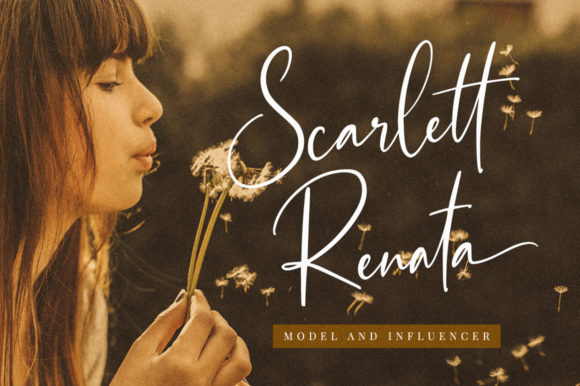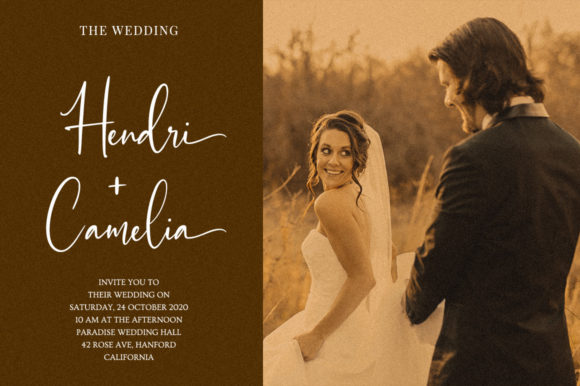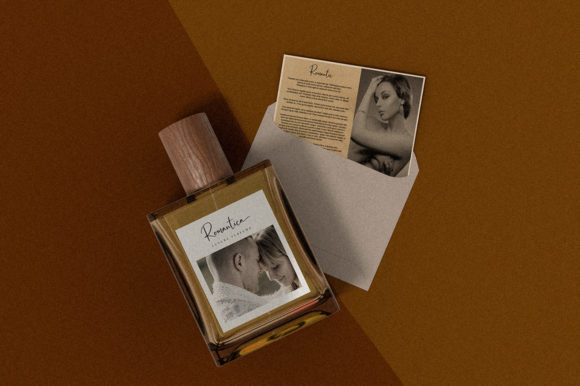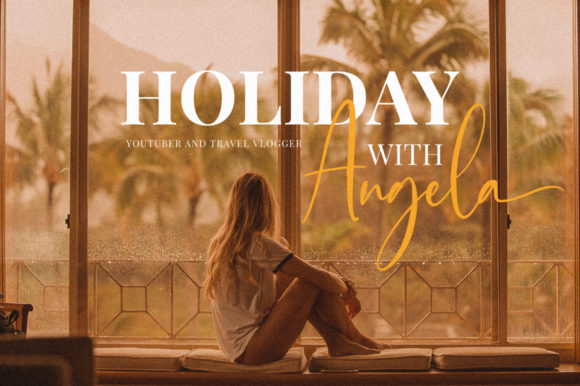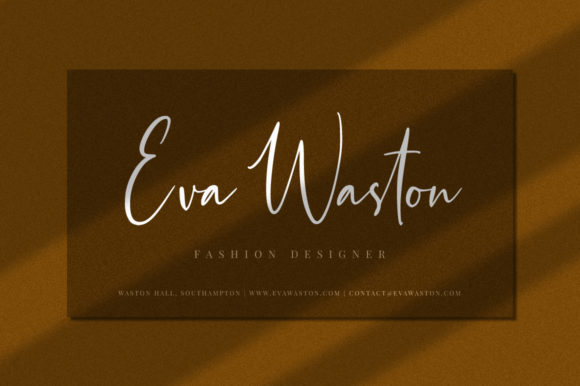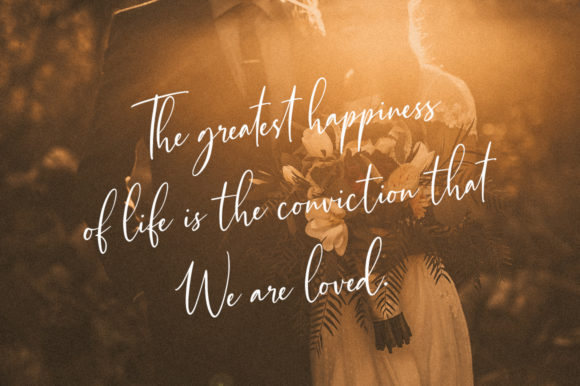
Ballerina Font: Elevate Your Designs with Elegance and Flair
Are you a designer or crafter looking for a font that exudes elegance and sophistication? Look no further than the Ballerina Font. This beautiful, handwritten font is perfect for adding a touch of refinement and glamour to your projects. In this article, we’ll take a closer look at the Ballerina Font, its features, and how you can use it to take your designs to the next level.
What is Ballerina Font?
Ballerina Font is an elegant and flowing handwritten font that is sure to capture your heart. With its delicate and refined strokes, this font is perfect for designs that require a touch of sophistication and luxury. Whether you’re working on a branding project, a wedding invitation, or a craft project, Ballerina Font is sure to impress.
One of the standout features of Ballerina Font is its PUA (Private Use Area) encoding. This means that you can access all of the glyphs and swashes with ease, giving you complete creative control over your designs. With PUA encoding, you can easily insert special characters, ligatures, and swashes into your text, allowing you to create beautiful and unique designs.
Features of Ballerina Font
Ballerina Font comes with a range of features that make it perfect for designers and crafters. Some of its key features include:
- Elegant and flowing handwritten script
- Delicate and refined strokes
- Perfect for designs that require a touch of sophistication and luxury
- Suitable for a range of projects, including branding, wedding invitations, and craft projects
How to Use Ballerina Font in Your Designs
Using Ballerina Font in your designs is easy. Here are a few tips to get you started:
- Use it as a headline font: Ballerina Font is perfect for headlines and titles, where its elegant and flowing script can really shine.
- Add it to your branding: If you’re looking for a font that will give your brand a touch of sophistication and luxury, Ballerina Font is a great choice.
- Use it for wedding invitations: Ballerina Font is perfect for wedding invitations, where its elegant and refined strokes can add a touch of romance and glamour.
- Experiment with swashes and glyphs: With PUA encoding, you can easily access a range of swashes and glyphs to add extra flair to your designs.
Why Choose Ballerina Font?
So why choose Ballerina Font for your designs? Here are just a few reasons:
- Unique and elegant design: Ballerina Font is a truly unique and elegant font that will set your designs apart from the crowd.
- High-quality encoding: With PUA encoding, you can be sure that you’ll have easy access to all of the glyphs and swashes you need.
- Versatile: Ballerina Font is suitable for a range of projects, from branding and advertising to wedding invitations and craft projects.
In conclusion, Ballerina Font is a beautiful and elegant handwritten font that is perfect for designers and crafters looking to add a touch of sophistication and luxury to their projects. With its PUA encoding and range of features, Ballerina Font is sure to become a favorite in your font collection. So why wait? Download Ballerina Font today and start creating stunning designs that will leave a lasting impression.